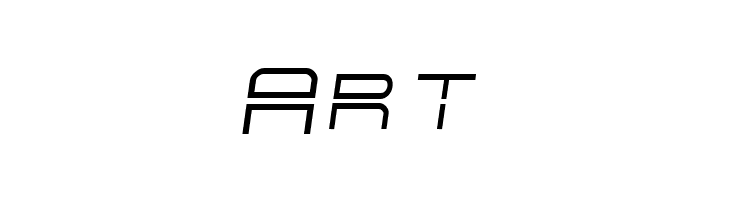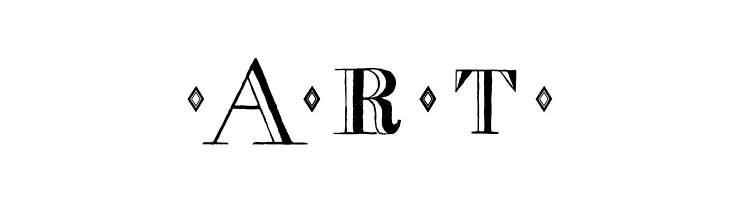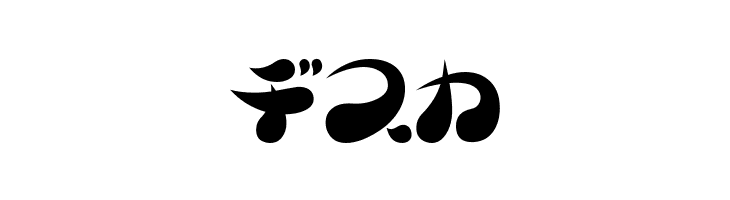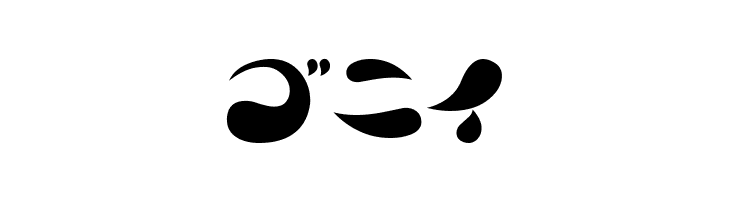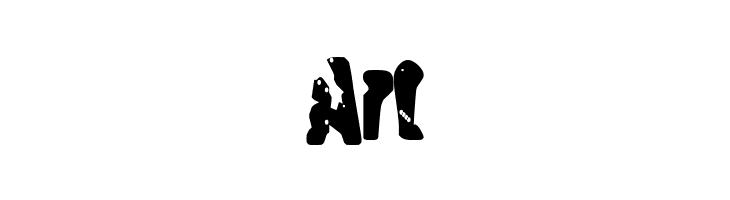
A futuristic, geometric font with clean lines and open forms.
An elegant and decorative font with diamond embellishments and unique numeral styling.
A bold, decorative font with playful, rounded shapes and whimsical curves.
A sleek, futuristic font with geometric lines and a modern aesthetic.
A playful, bold font with a whimsical and cartoonish design.